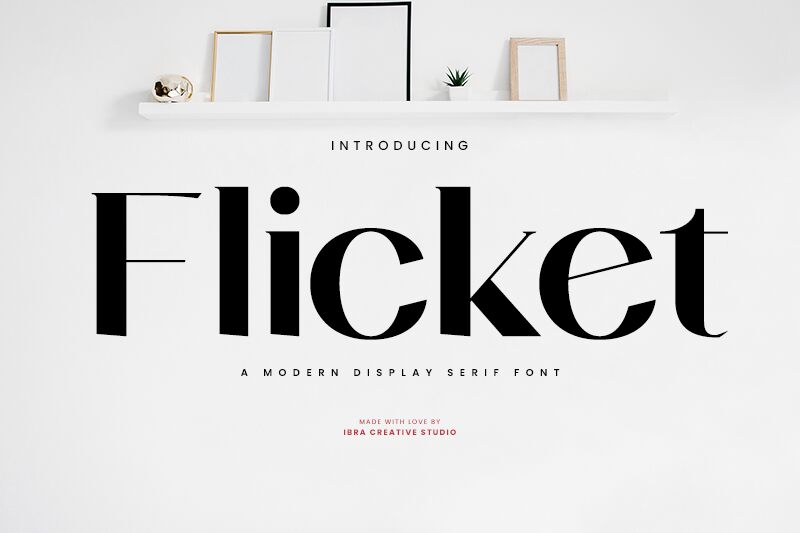
Flicket font by Ibra Creative Studio is a modern sans serif font with simple, sleek, and elegant designs. The straight lines and sharp curves create clean visual content that communicates effectively while retaining style. Its classic appeal makes it work however it’s used, effortlessly catching the eye of those who encounter it.
Use Flicket for posters, logotypes, packaging designs like snack/coffee labels and product descriptions where every little detail counts especially visually. It’s also perfect to use in branding identity work (letterheads, business cards), book titles or magazines headlines as well as website banners or landing pages.